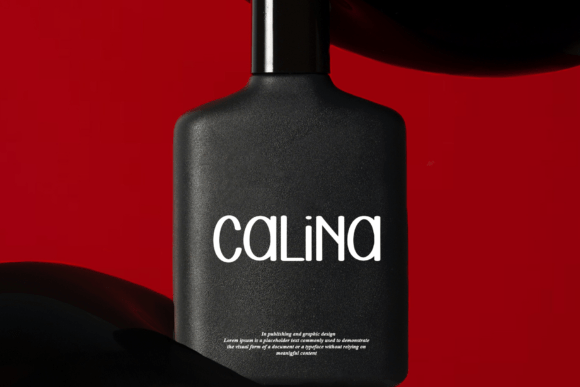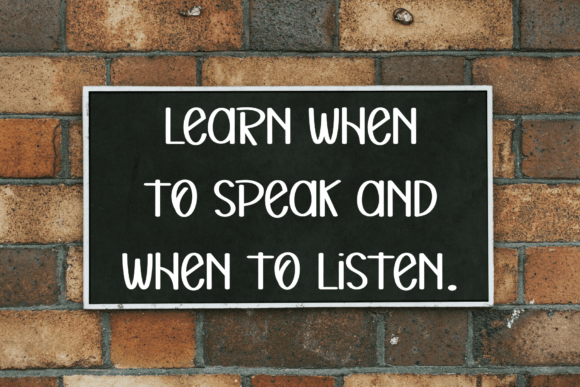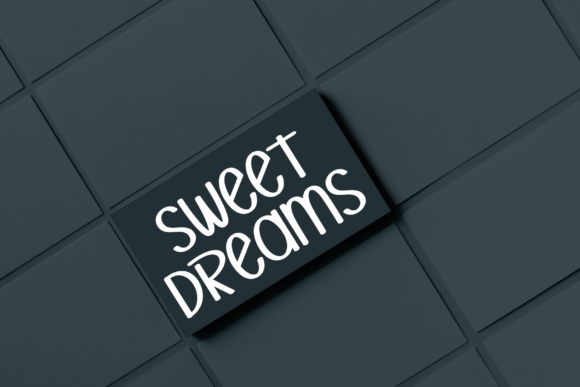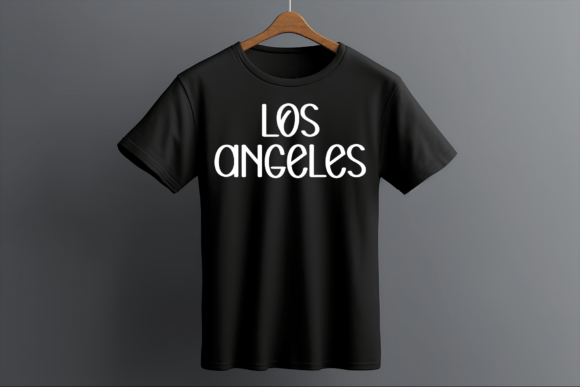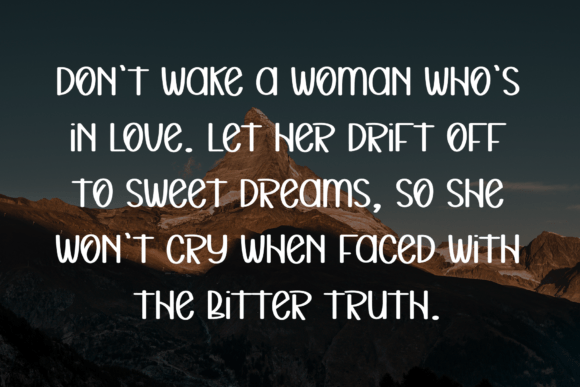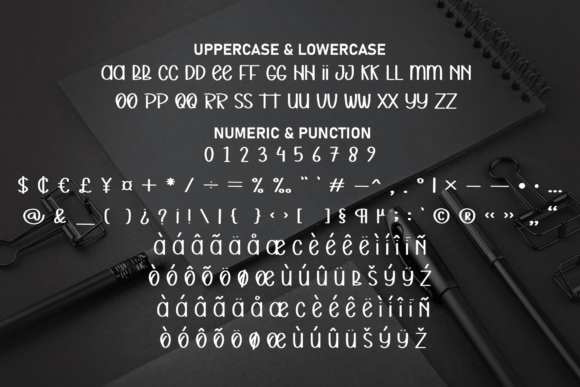
Unlocking Creative Potential with Black Mockup Font
I’ll never forget the design struggle that led me to discover Black Mockup Font. I was working on a branding project for a local artisan, and I just couldn’t find the right font to capture the “whimsical-and-handcrafted” vibe she was looking for. The client wanted something that felt spontaneous, like a marker sketch on a fresh notepad. That’s when I stumbled upon Black Mockup, and it was love at first sight! ✨
A Quirky Display Typeface that Stands Out
Black Mockup Font is a game-changer for designers, crafters, and creative hobbyists looking to infuse their designs with a unique energy. This font features tall, slender letterforms with a charming mix of sharp angles and soft curves, giving it a hand-inked aesthetic that’s hard to resist. The rhythmic variations in letter width add to its quirky charm, making it perfect for independent lifestyle branding, creative portfolio titles, artisanal stationery logos, and high-impact social media headers.
- ✨ Unique, hand-inked aesthetic that adds a touch of whimsy to any design
- ✅ Tall, slender letterforms that command attention
- ✅ Rhythmic variations in letter width for added visual interest
- ✅ Perfect for creative projects that need a personal touch
While Black Mockup Font is an amazing addition to any design toolkit, there are a few things to keep in mind: 🤔
- ⚠️ May not be suitable for body text due to its display nature
- ⚠️ Some characters may require manual kerning for optimal results
The Story Behind Black Mockup Font
Black Mockup Font was designed with the creative spirit in mind. Its creator, a young designer with a passion for hand-drawn typography, wanted to capture the essence of spontaneous sketching on a fresh notepad. The result is a font that’s equal parts quirky, charming, and versatile.
Q: What is Black Mockup Font best used for?
A: Black Mockup Font is perfect for creative projects that need a personal touch, such as independent lifestyle branding, creative portfolio titles, artisanal stationery logos, and high-impact social media headers.
Q: Can I use Black Mockup Font for body text?
A: While Black Mockup Font is a beautiful display font, it may not be suitable for body text due to its tall, slender letterforms and rhythmic variations in letter width.
Q: Does Black Mockup Font come with OpenType features?
A: Yes, Black Mockup Font features OpenType capabilities, including glyphs and stylistic alternates, which can be accessed in compatible design software.